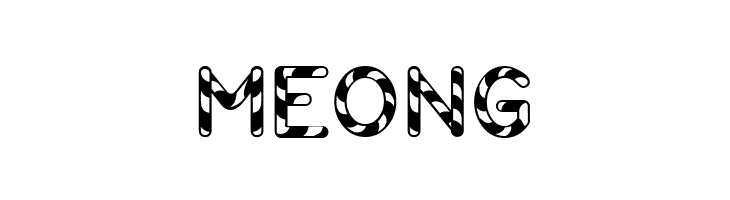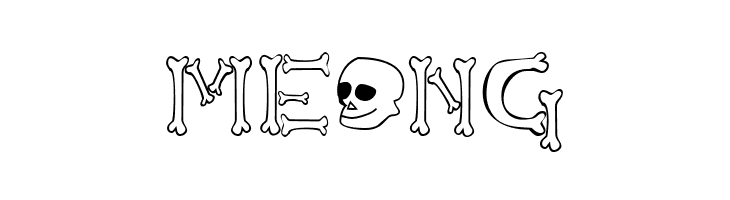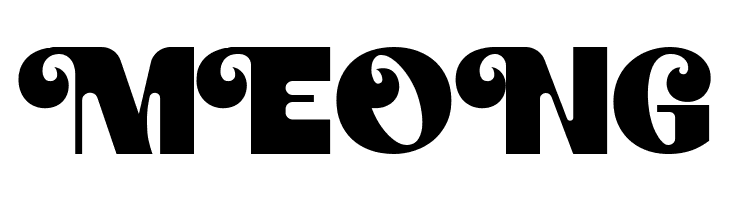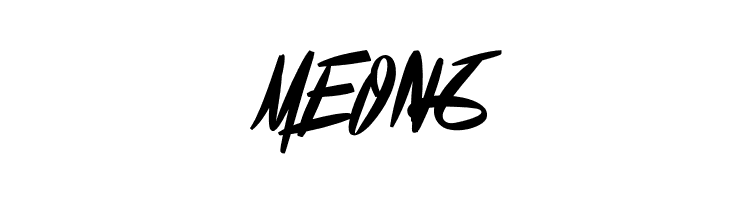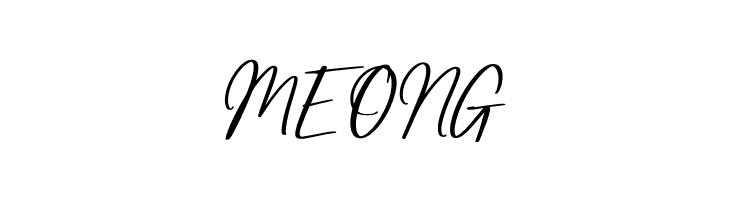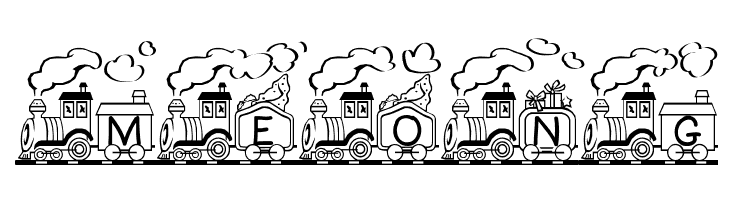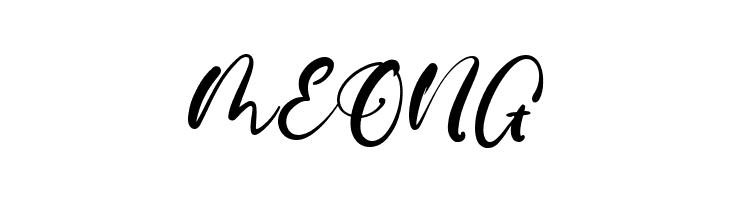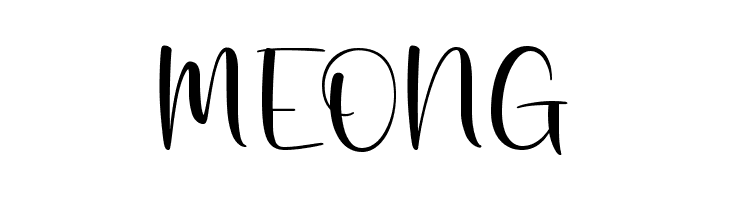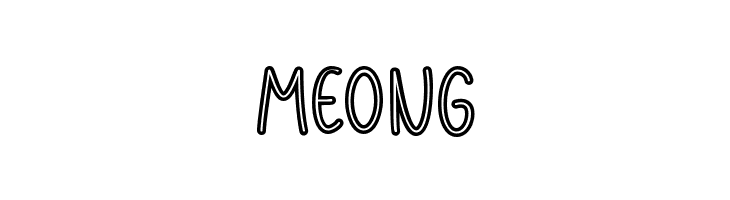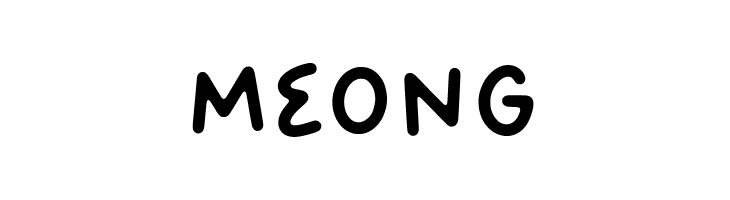
( Fonts by 177Studio )
A bold, decorative font with playful swirls and curves, perfect for creative projects.
Bold, stencil-like font with high contrast and blocky characters.
( Fonts by Mozyen Studio )
A bold, handwritten font with dynamic and energetic strokes.
( Fonts by Din Studio )
Elegant cursive script with a handwritten feel.
( Fonts by Maulana Creative )
Handwritten decorative font with artistic flair.
( Fonts by Vztype Studio )
Elegant cursive script with a handwritten feel.
Playful handwritten script font.
Playful handwritten inline font.
( Fonts by Timur Type )
Playful, rounded handwritten font.
( Fonts by Maulana Creative )
Elegant cursive script with a handwritten feel.
( Fonts by zamjump )
Elegant handwritten script font.
( Fonts by Namara Creative )
Expressive handwritten script font.
( Fonts by Masa Aska Sanurumi )
Bold, playful handwritten font with organic shapes.
( Fonts by Mariyana )
Expressive, casual handwritten script with tall, loose letterforms.
( Fonts by Letterative Studio )
A relaxed, handwritten script with a friendly and informal style.
Bold slab serif with a Western, vintage style.
A bold, whimsical display font with playful, irregular shapes.
Ornate, distressed decorative display font with vintage flair.
Bold, jagged-edged display font with a Western vintage feel.
( Fonts by Md Shohail Bhuian )
A spooky, jagged display font with a horror vibe.
( Fonts by Cat.B )
Bold, playful display font with a retro arcade vibe.
( Fonts by Diosi Julianto )
( Fonts by www.matchfonts.com - Michel Bujardet )
An elegant, flowing script font with a modern twist and medium contrast.
( Fonts by www.matchfonts.com - Michel Bujardet )
A festive, candy cane-themed decorative font with bold, striped characters.
( Fonts by www.matchfonts.com - Michel Bujardet )
A dot matrix style font with a retro digital display aesthetic.